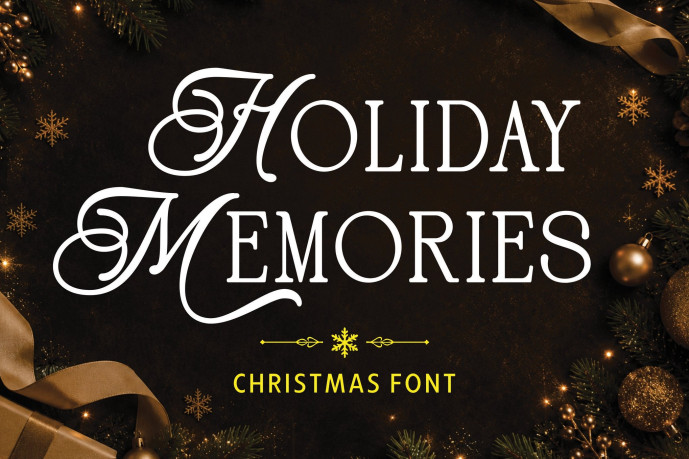
Holiday Memories Font
Holiday Memories Font is a warm and charming Christmas font designed to capture the joy, nostalgia, and magic of the holiday season. With its playful letterforms and festive personality, this font brings a cozy atmosphere to every design, making it perfect for celebrating unforgettable holiday moments with family and friends.
Crafted with a cheerful and heartwarming style, Holiday Memories combines festive charm with excellent readability. Its unique character creates a welcoming and joyful appearance, helping every word feel filled with Christmas spirit. Whether used for traditional holiday themes or modern seasonal designs, this font adds a delightful touch that feels both magical and memorable.
This font is perfect for Christmas and winter-themed projects, including greeting cards, holiday invitations, gift tags, seasonal branding, festive decorations, and social media graphics. Its versatile design allows it to adapt beautifully across a wide range of creative applications while maintaining its cozy holiday appeal.
Holiday Memories works wonderfully for posters, packaging, mugs, stickers, party supplies, and holiday merchandise. The playful and festive letterforms help create designs that feel warm, friendly, and full of seasonal joy.
The font is also ideal for crafting and DIY projects such as Cricut creations, SVG cut files, handmade ornaments, custom gifts, and holiday decorations. Whether used in print or digital media, Holiday Memories adds a magical Christmas touch to every creation.